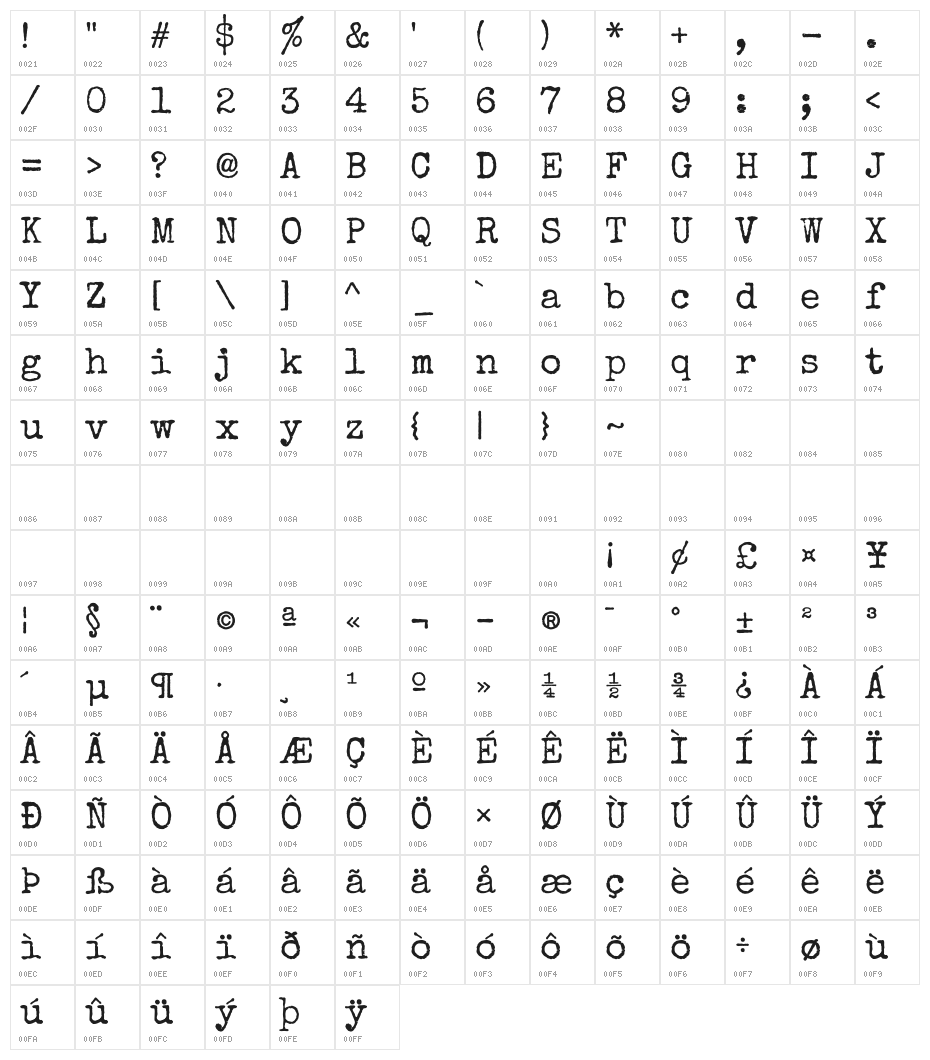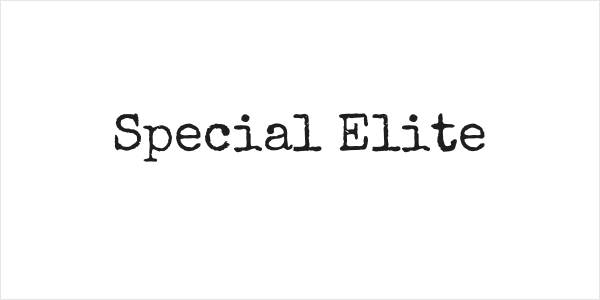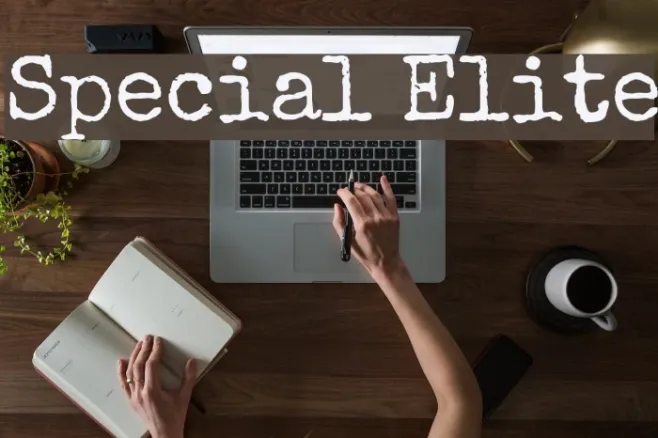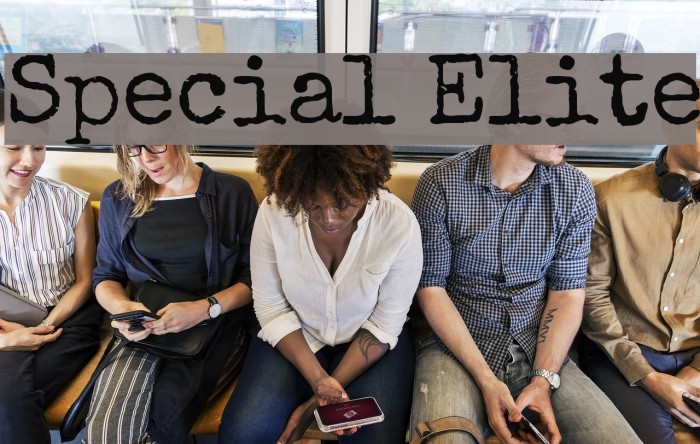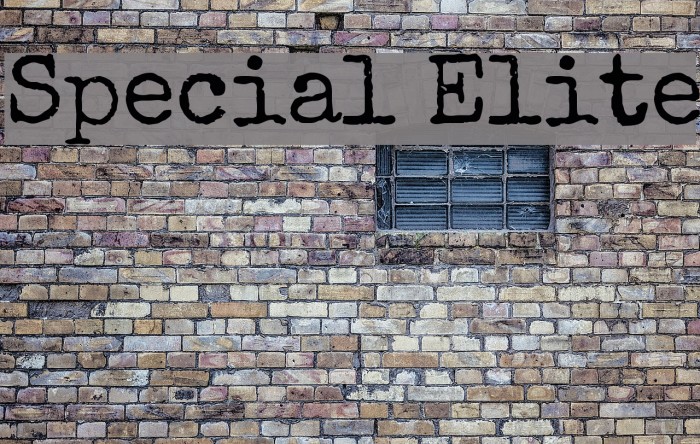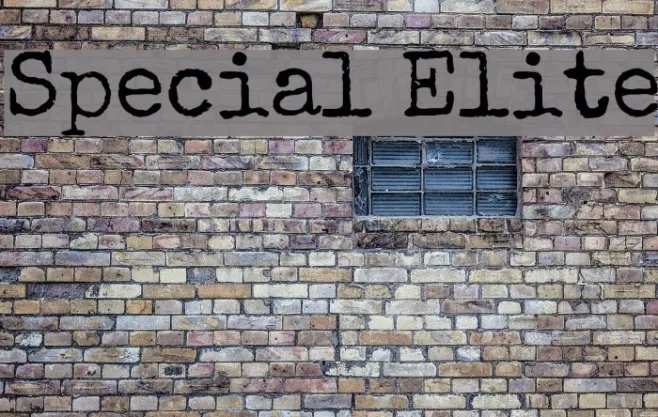
Special Elite Font
Special Elite Description
This typeface exudes a vintage typewriter aesthetic, characterized by its monospaced, slab serif design. The letters have a slightly distressed appearance, giving them a worn, authentic feel reminiscent of old typewritten documents. The uppercase and lowercase characters maintain a consistent style, with rounded edges and a uniform stroke width that enhances readability. Numbers and special characters follow the same design principles, ensuring a cohesive look across all text elements. The font's unique charm lies in its ability to evoke nostalgia while remaining versatile for modern applications.
| Overall Style | Vintage |
| Proposed Projects | Ideal for projects that require a retro or vintage feel, such as posters, invitations, branding for artisanal products, or any design that aims to evoke nostalgia. |